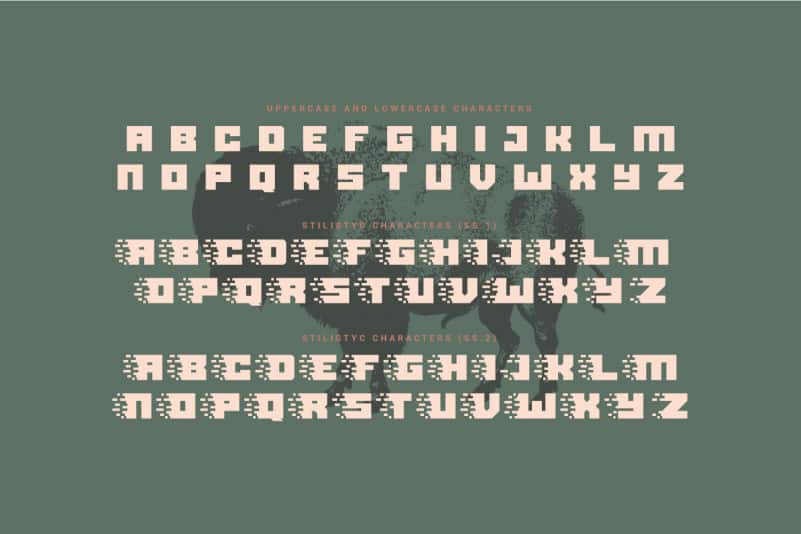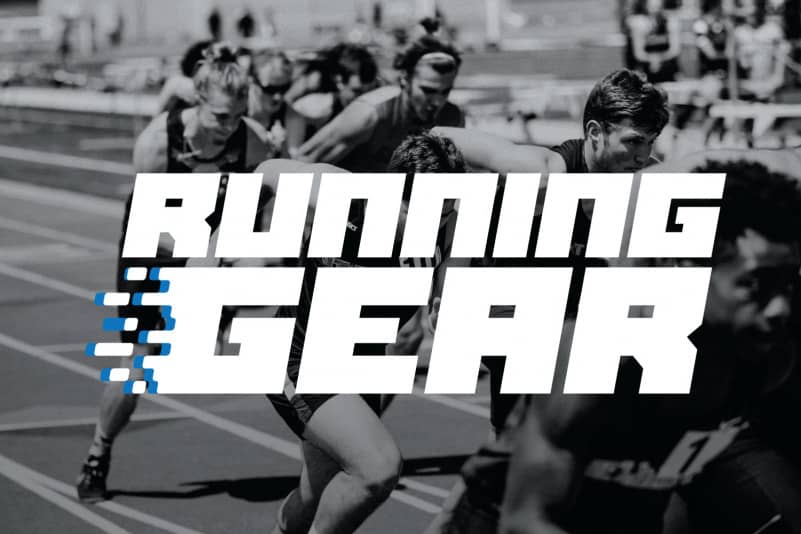
Black Bison Display Font
Black Bison Display Font is display font unique, strong and versatile serif family with alternates and Ligatures to create a more stunning display.
Black Bison Display Font, a clean sans serif, offers you:
1. Upper and Lowercase characters (All Caps)
2. Ligatures (39 characters) and Stylistic Set (52 Characters)
3. Multilingual Support (Latin Western Europe), Numbers and Punctuation